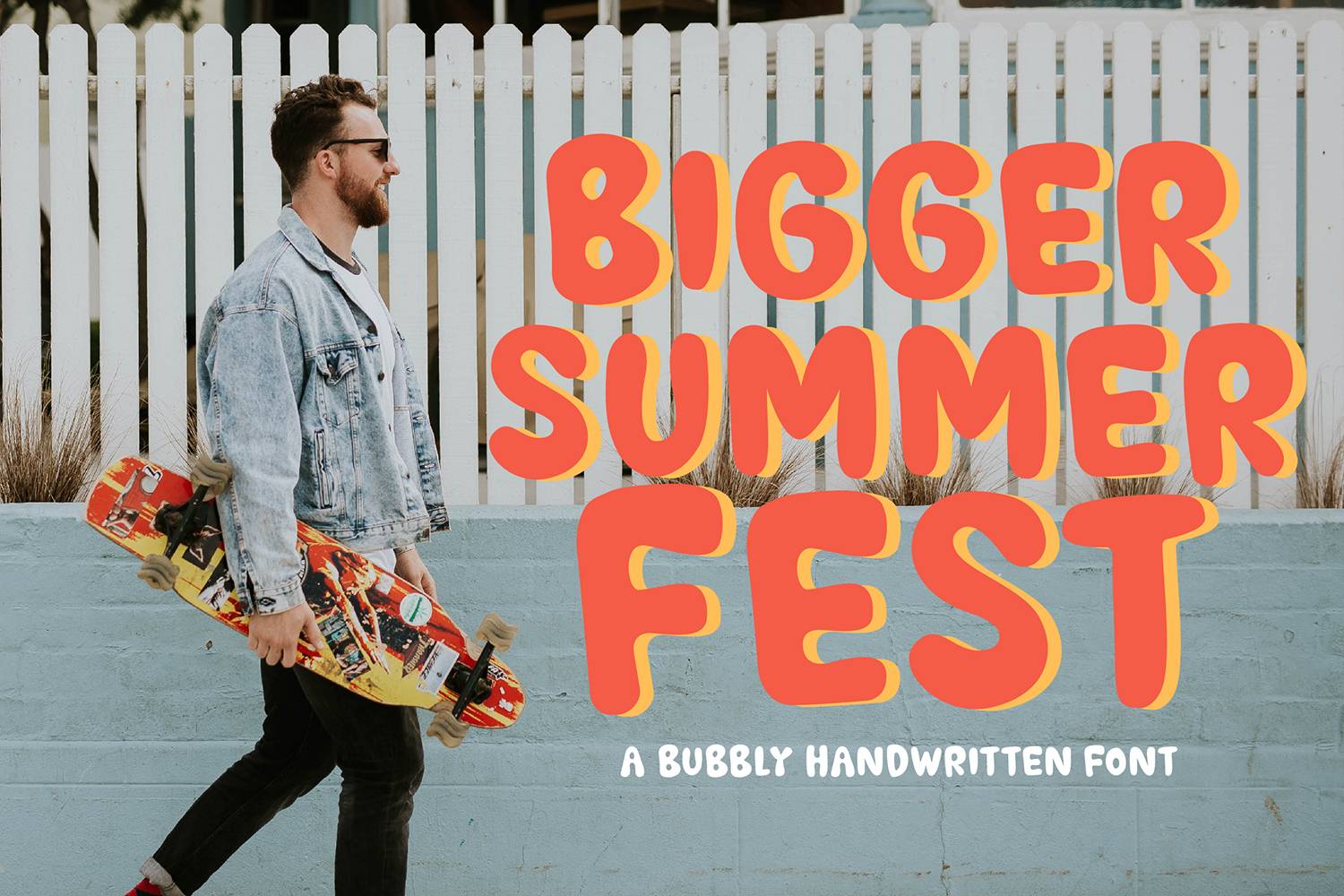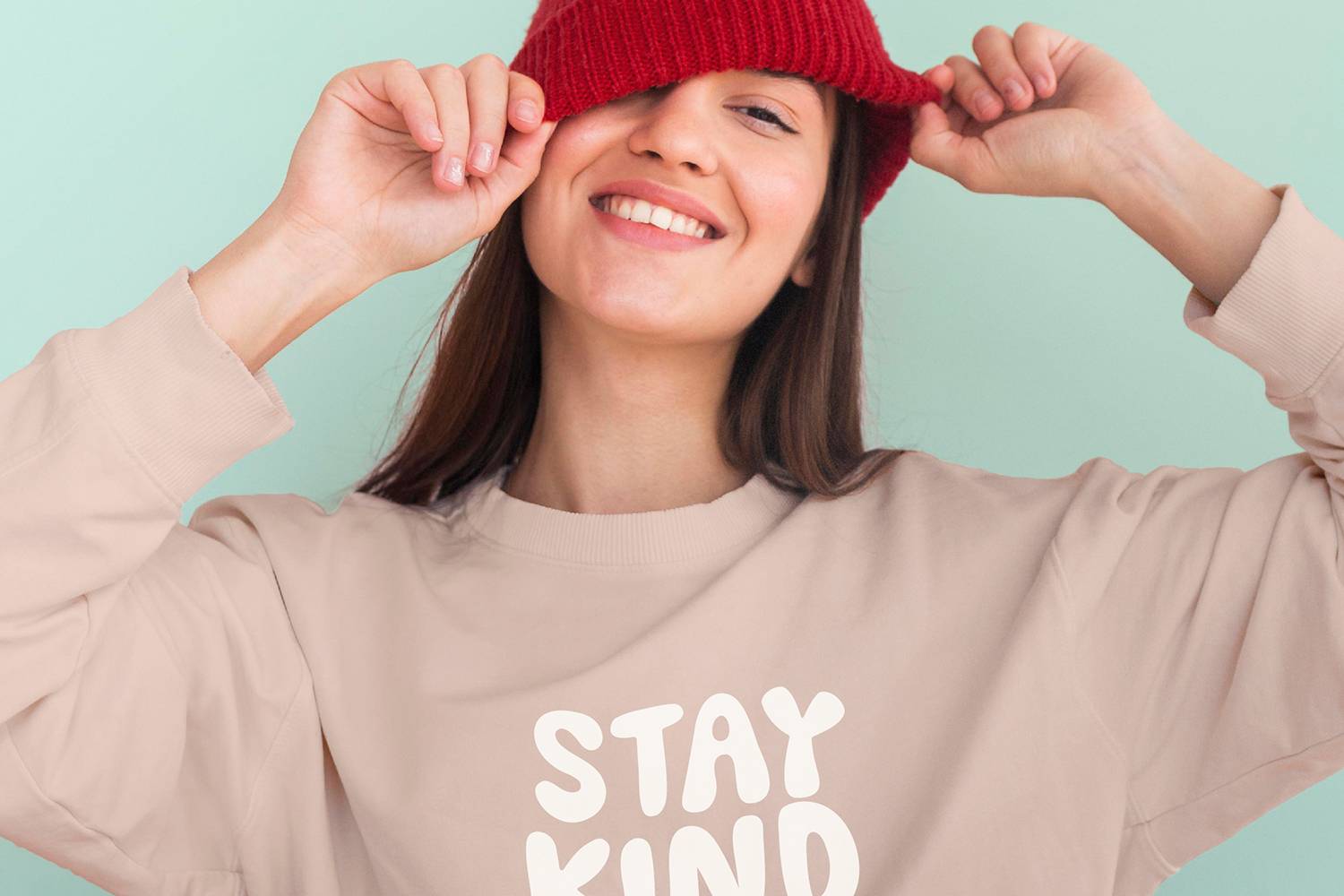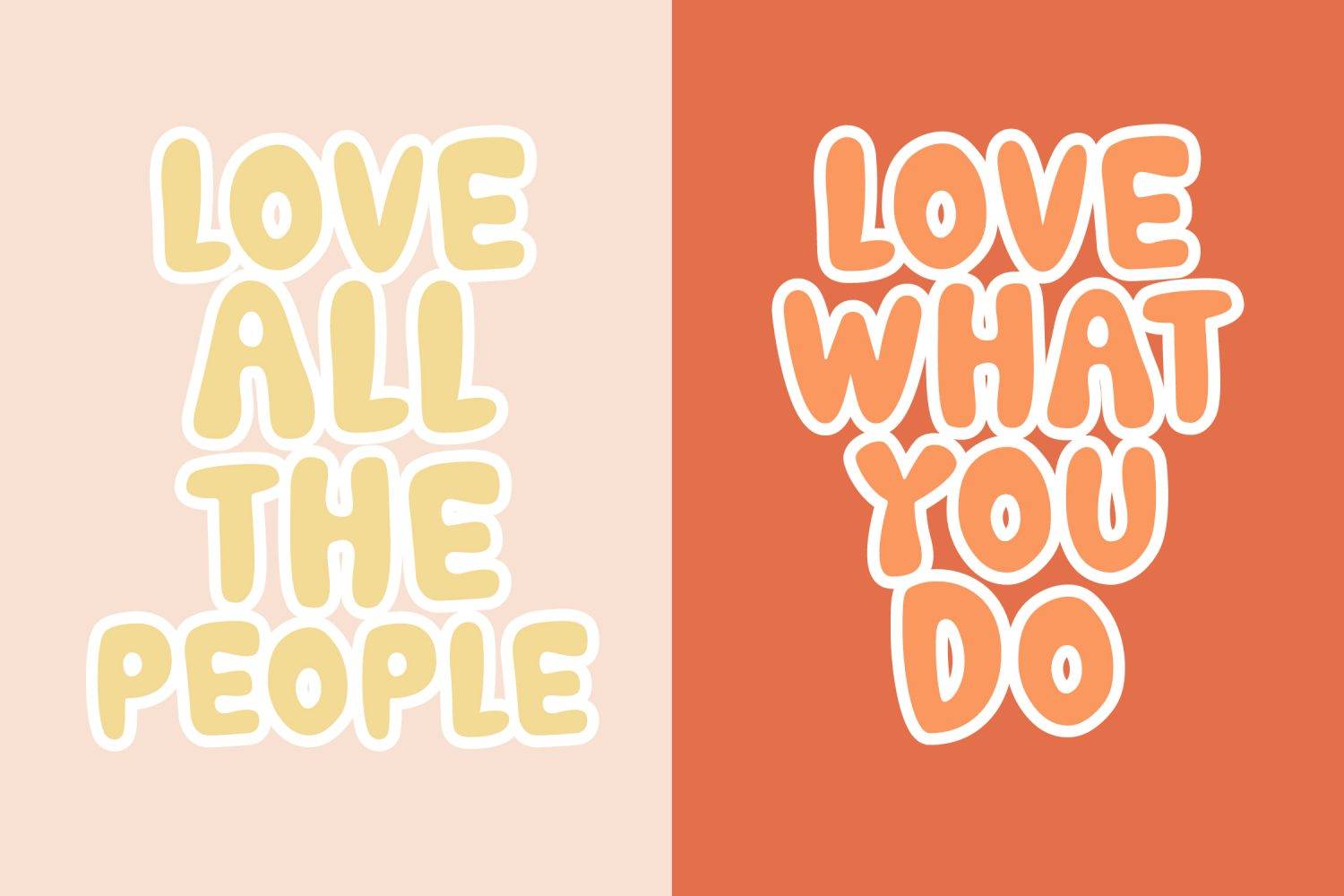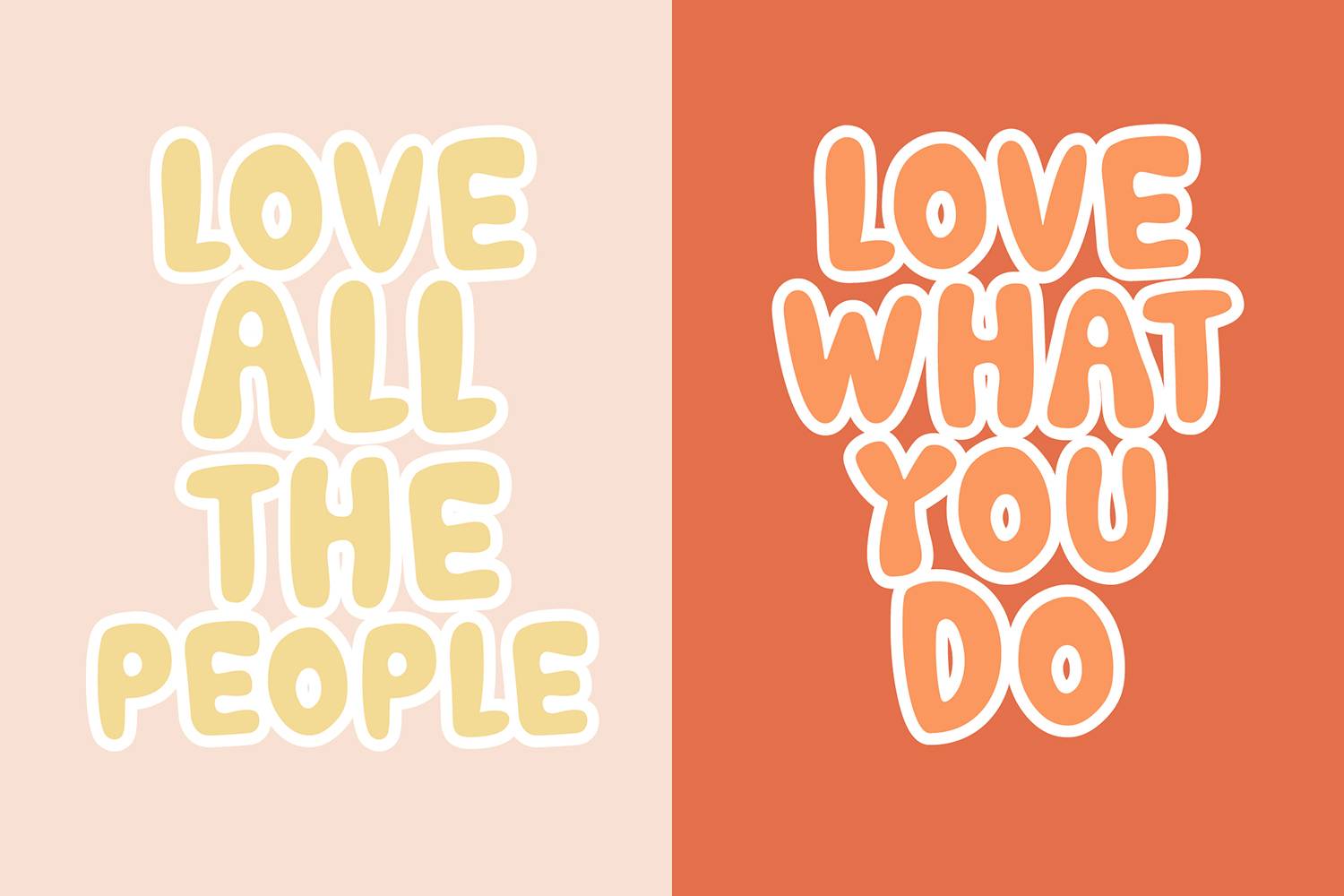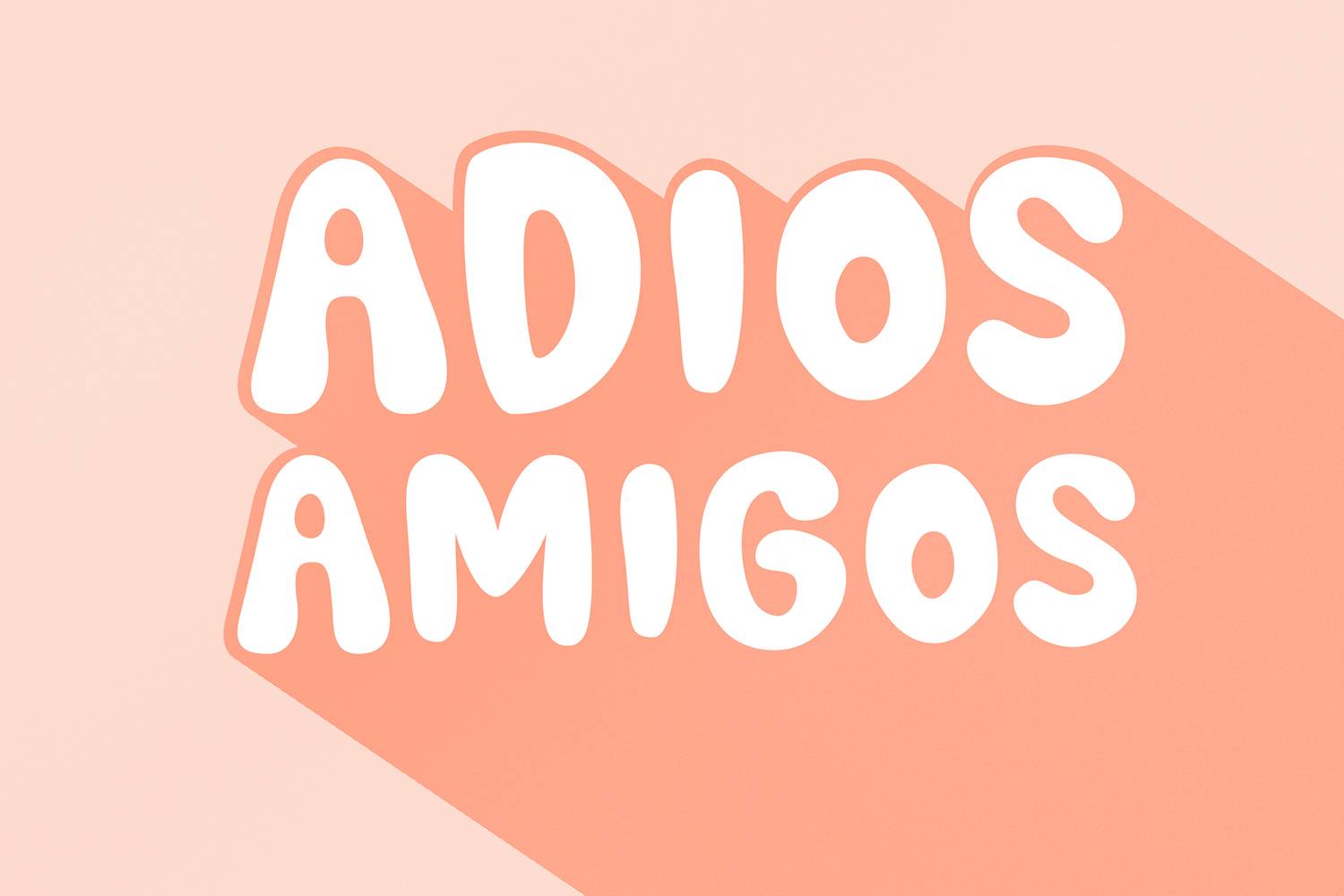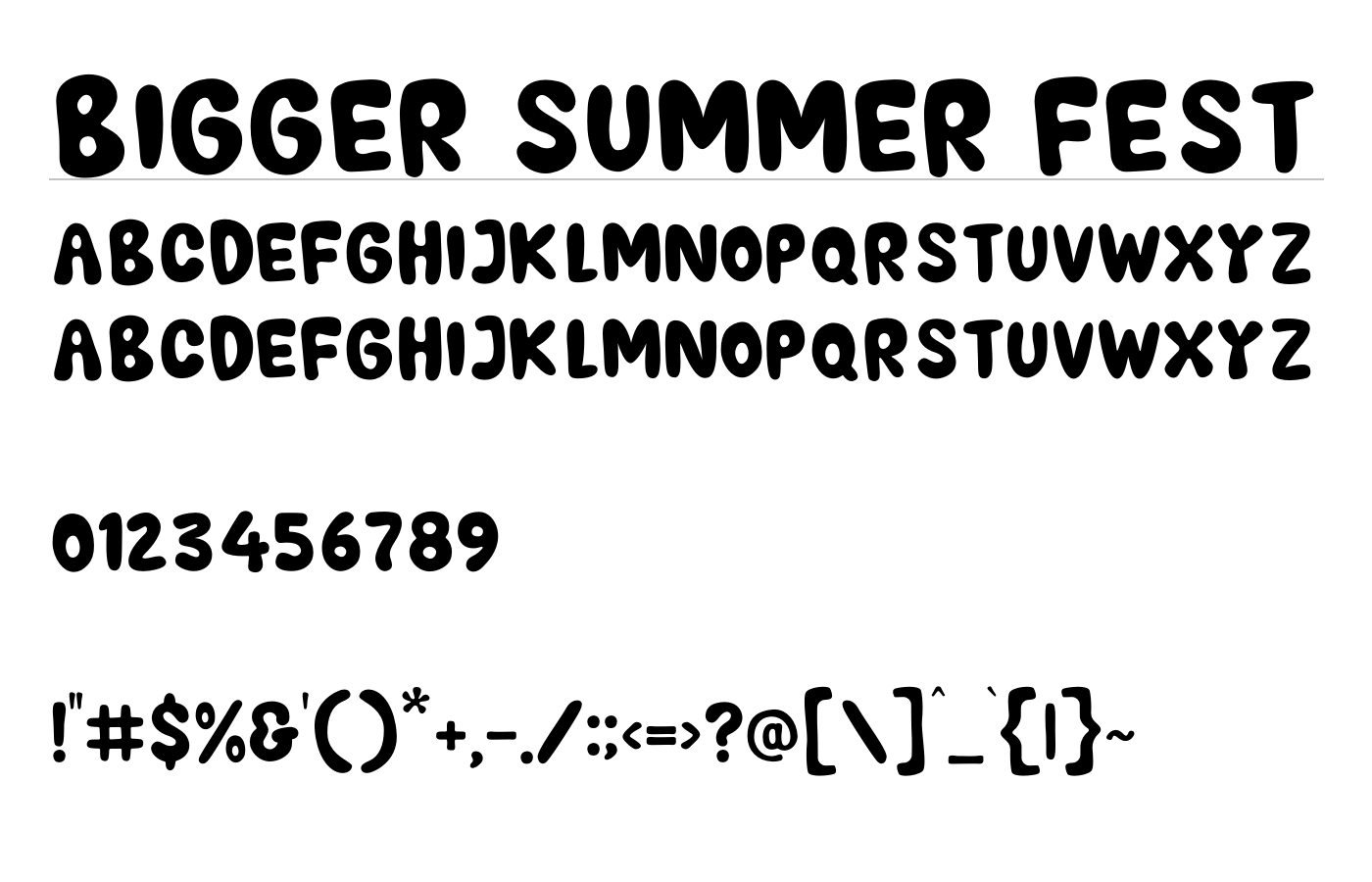
Bigger Summer Font is a bold, playful sans serif typeface with rounded, chunky letterforms that convey a friendly, casual vibe. Its high x-height and soft, organic shapes make it highly legible and perfect for fun, eye-catching designs like posters, branding for kids’ products, or event promotions. This font adds a cheerful and approachable personality, ideal for projects that want to feel inviting and lively.
Bigger Summer Font
About Bigger Summer Font